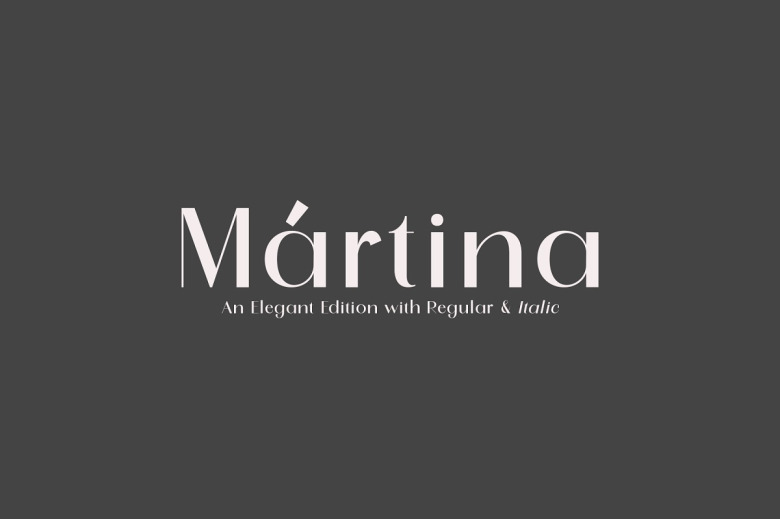
Martina Font
Martina is a minimal, classic sans serif font. Just enough personality to stand as a headline or house style. Regular and Italic with is also includes all latin characters (including accents), numbers, special characters, and punctuation.
This can be used for wordmark logos, mastheads, pull quotes, monograms with feminine as well as masculine qualities.
Martina Sans Serif Font